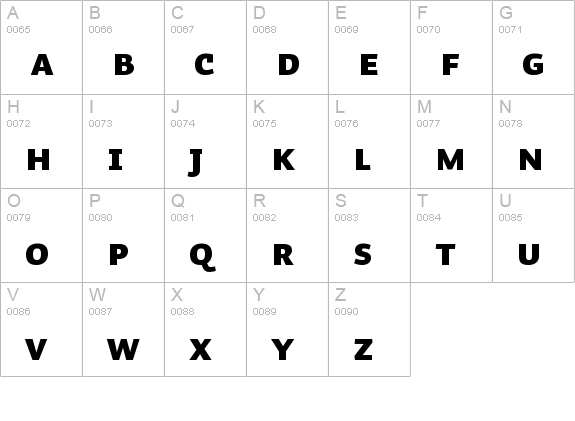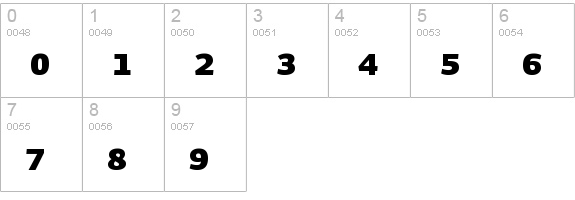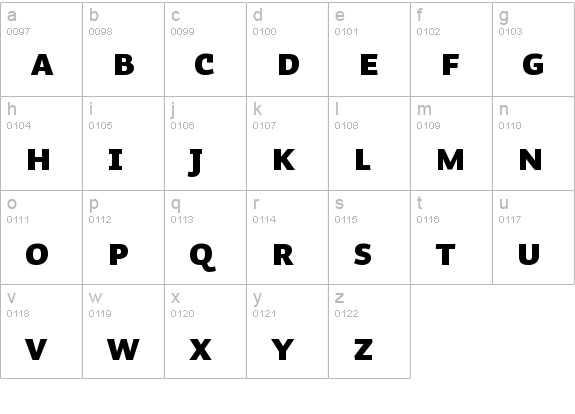
Auto 2 Black SmCp is a maximum-weight, dramatic variant in the Auto typeface family \xE2\x80\x94 well suited to maximum-impact headlines, posters, and packaging.
Auto 2 Black SmCp font is a modern and stylish typeface that exudes confidence and sophistication. Its bold and sleek design makes it perfect for creating eye-catching headlines, logos, and branding materials. The font features clean lines and sharp edges that give it a contemporary look. The compact letterforms make it ideal for fitting a lot of text in a small space while maintaining readability. What's even better is that Auto 2 Black SmCp font is available for free download at FontsMarket.com. This means you can easily access this premium font without any cost. Whether you're a designer, marketer, or just someone looking to enhance their projects with a high-quality font, Auto 2 Black SmCp is a fantastic choice that won't break the bank. Download it today and elevate your designs with this sophisticated and versatile typeface.